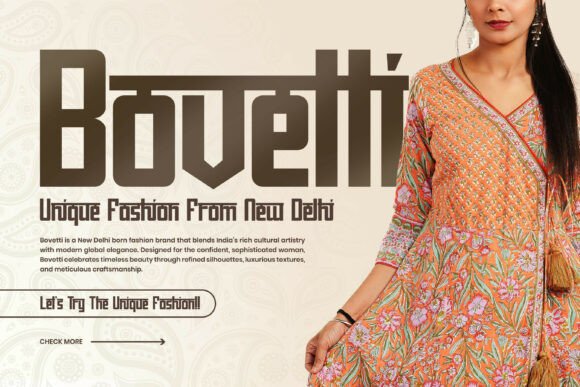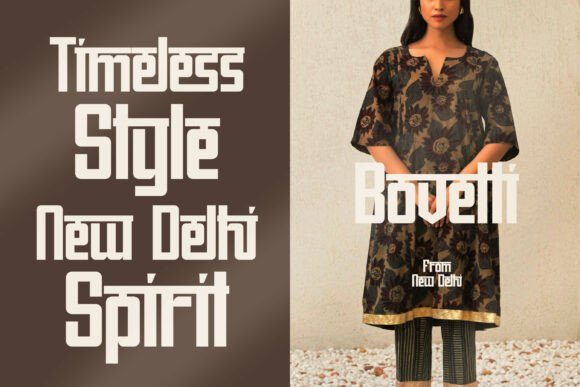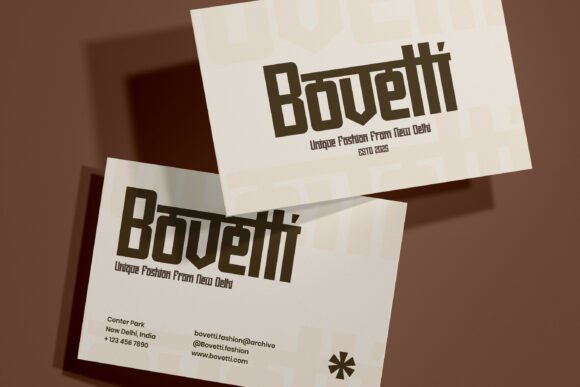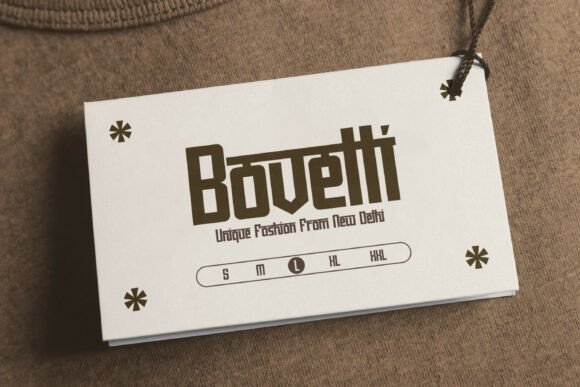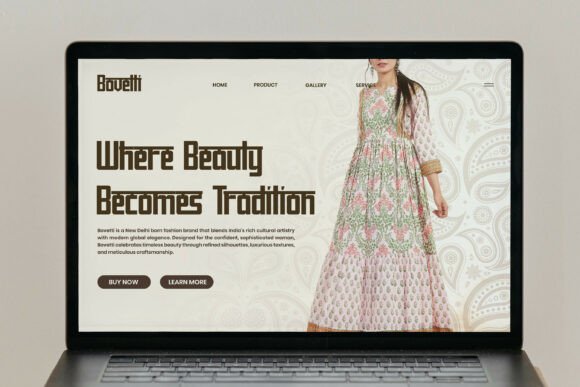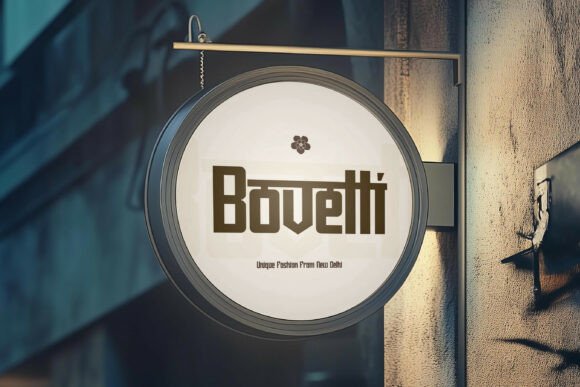
The Quest for the Perfect Font: Discovering Aryavni
I still remember the frustration of scrolling through font after font, searching for the perfect one to bring my design project to life. As a designer, I’ve had my fair share of font dilemmas, but one project stands out in particular. I was working on a branding campaign for a modern Indian fashion brand, and I needed a font that was bold, clean, and culturally relevant. That’s when I stumbled upon Aryavni, a modern sans Hindi display typeface that has since become a staple in my design toolkit.
Aryavni: A Modern Sans Hindi Display Typeface
Aryavni is a stunning font designed with strong geometric forms, smooth curves, and balanced proportions. Its bold, clean, and contemporary character makes it perfect for display purposes, while maintaining clarity and cultural integrity. Whether you’re a designer, crafter, or creative hobbyist, Aryavni is definitely worth getting to know.
My Honest Review of Aryavni
- ✅ Unique character: Aryavni has a distinct personality that sets it apart from other fonts.
- ✅ Cultural relevance: The font is designed specifically for Hindi and other Indian languages, making it perfect for projects that require cultural authenticity.
- ✅ Legibility: Despite its bold character, Aryavni remains surprisingly legible, even at smaller font sizes.
- ✅ Versatility: The font comes with a range of OpenType features, glyphs, and stylistic alternates, making it suitable for a wide range of design applications.
While Aryavni is an excellent font, it’s not without its quirks. For instance:
- 🤔 Limited language support: As a Hindi-focused font, Aryavni may not be the best choice for projects that require support for multiple languages.
- 🤔 Not suitable for body text: Due to its bold character, Aryavni is best used for display purposes, rather than body text.
The Story Behind Aryavni
Aryavni was designed with the goal of creating a modern, sans Hindi display typeface that would meet the needs of Indian designers and creatives. Inspired by the rich cultural heritage of India, the font’s designer aimed to create a unique and distinctive character that would reflect the country’s vibrant spirit.
Q: What is Aryavni?
Aryavni is a modern sans Hindi display typeface designed with strong geometric forms, smooth curves, and balanced proportions.
Q: Is Aryavni suitable for body text?
No, Aryavni is best used for display purposes, rather than body text, due to its bold character.